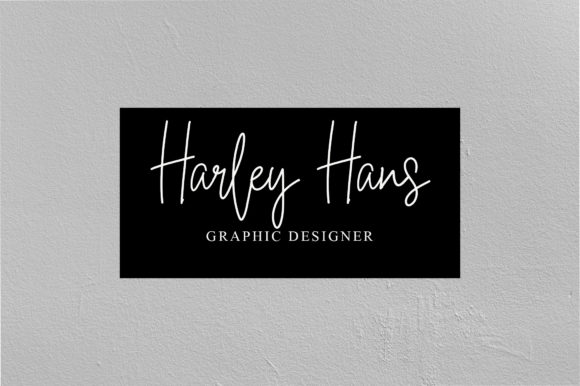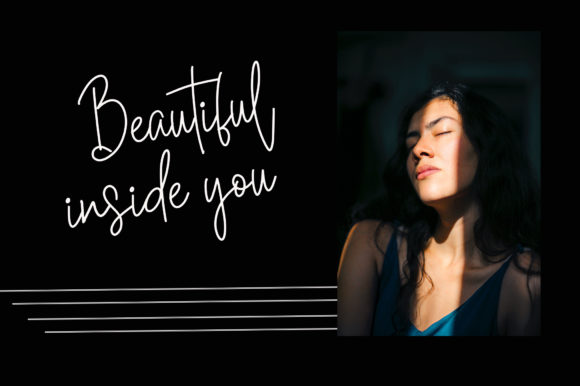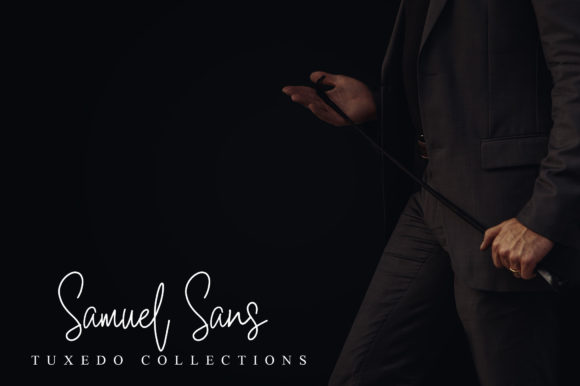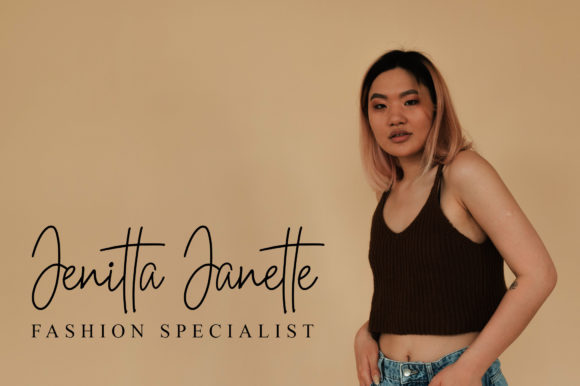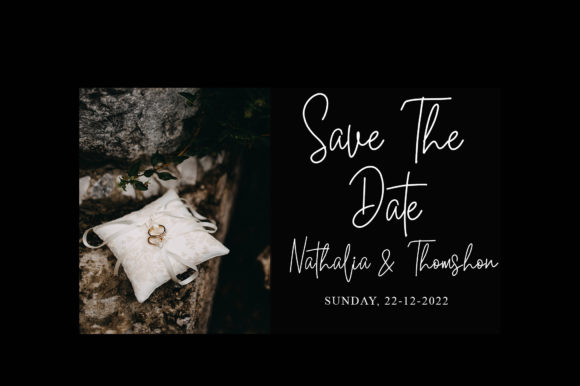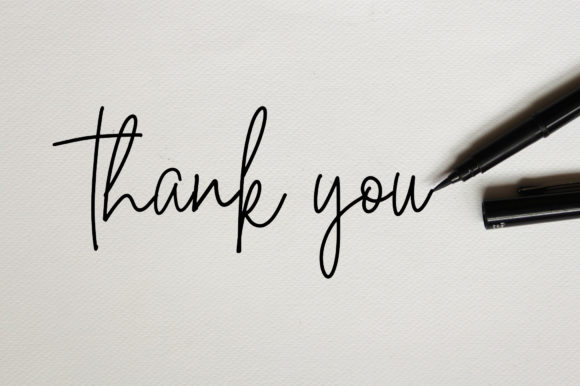
Elevate Your Designs with Black Pastel Font: A Lovely and Delicate Script Font
Are you looking for a font that exudes elegance and class to elevate your designs? Look no further than the Black Pastel font. This lovely and delicate script font is specifically crafted for designers and crafters who need a beautiful and refreshing look to their designs. In this article, we’ll dive into the features and benefits of the Black Pastel font, and explore how it can add a touch of sophistication to your creative projects.
What is Black Pastel Font?
Black Pastel is a stunning script font that features delicate and elegant lettering. Its unique design makes it perfect for a variety of creative projects, from wedding invitations and branding materials to social media graphics and digital art. The font’s soft and smooth lines create a beautiful, hand-drawn feel that’s sure to capture the attention of your audience.
Key Features of Black Pastel Font
So, what makes Black Pastel font so special? Here are some of its key features:
- Elegant and Delicate Design: Black Pastel font boasts a beautiful, cursive script design that’s perfect for creating elegant and sophisticated designs.
- Hand-Drawn Feel: The font’s soft and smooth lines create a hand-drawn feel that’s perfect for adding a personal touch to your designs.
- High-Quality Letters: The font features high-quality letters with precise lines and curves, ensuring that your designs look professional and polished.
- Easy to Read: Despite its delicate design, Black Pastel font is easy to read, making it perfect for body text and headlines.
- Versatile: Black Pastel font can be used for a wide range of creative projects, from digital art and social media graphics to branding materials and wedding invitations.
Benefits of Using Black Pastel Font
So, why should you choose Black Pastel font for your designs? Here are some of the benefits of using this lovely font:
- Adds Elegance and Class: Black Pastel font adds a touch of elegance and class to your designs, making them perfect for high-end branding and marketing materials.
- Creates a Personal Touch: The font’s hand-drawn feel creates a personal touch that’s perfect for adding a human element to your designs.
- Improves Readability: Black Pastel font is easy to read, making it perfect for body text and headlines.
- Versatile and Flexible: The font can be used for a wide range of creative projects, making it a great addition to your font library.
How to Use Black Pastel Font
- Pair it with Other Fonts: Black Pastel font pairs well with other fonts, such as sans-serif fonts and bold fonts. Experiment with different font combinations to find the perfect look for your design.
- Use it for Headlines and Titles: Black Pastel font is perfect for headlines and titles. Its elegant design makes it a great choice for adding a touch of sophistication to your designs.
- Add it to Your Brand Identity: Black Pastel font can be used to create a consistent brand identity. Use it across all your marketing materials, from business cards to social media graphics.
In conclusion, Black Pastel font is a lovely and delicate script font that’s perfect for designers and crafters who need a beautiful and refreshing look to their designs. Its elegant design, hand-drawn feel, and versatility make it a great addition to any font library. Whether you’re creating wedding invitations, branding materials, or digital art, Black Pastel font is sure to elevate your designs and add a touch of sophistication.